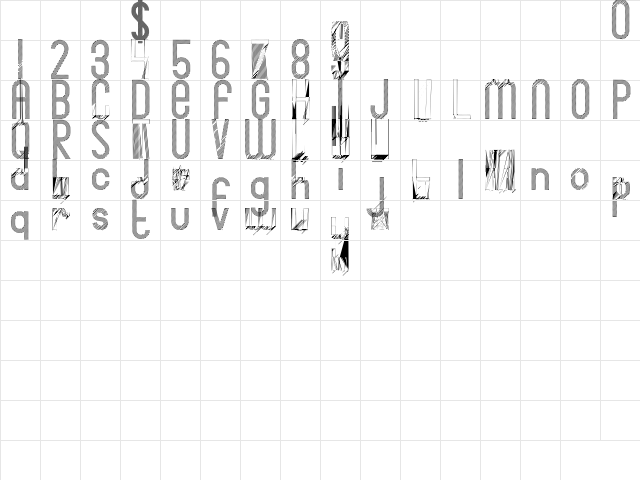
Bingke Kentang DEMO Regular Free Font
Bingke Kentang DEMO Regular
Design Context for Bingke Kentang DEMO
Bingke Kentang DEMO is a composed and adaptable typeface that performs quietly and consistently across a wide range of design contexts.